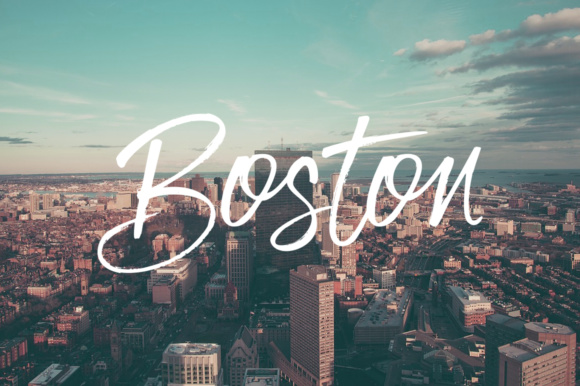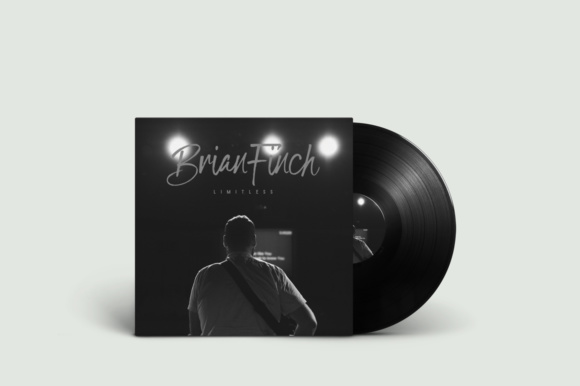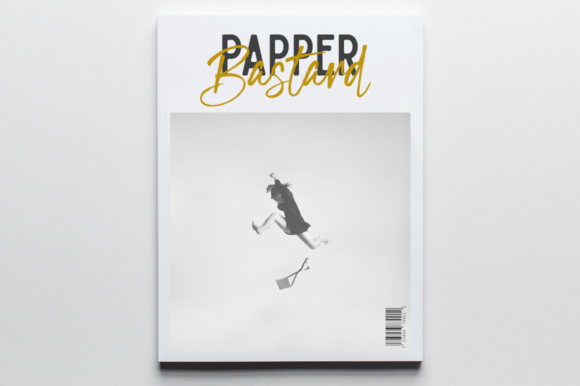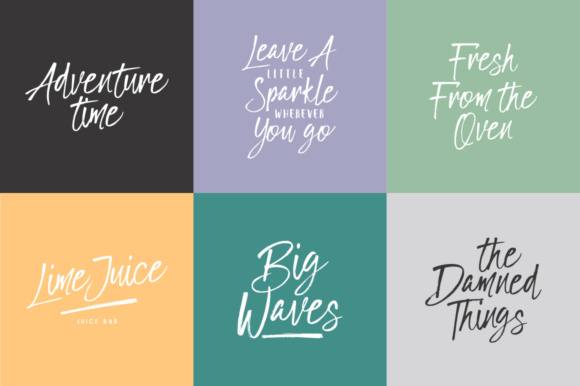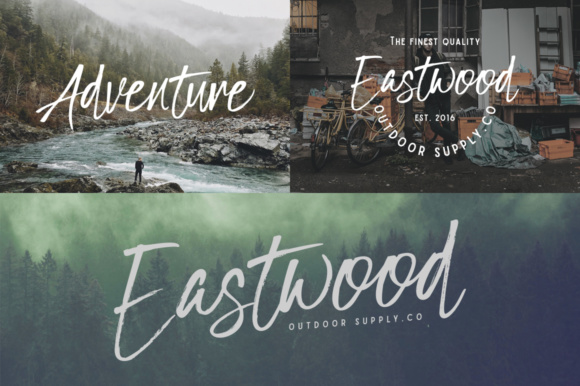
Introducing Heats Font: The Ultimate Hand-Brushed Script for Stunning Designs
Are you tired of using the same old fonts for your designs? Do you want to add a touch of uniqueness and personality to your work? Look no further than Heats Font, a hand-brushed script that is sure to take your designs to the next level. With its cool characters and distinctive look, Heats Font is perfect for advertising, poster designs, book covers, magazines, and any other design that needs a striking and eye-catching look.
What Makes Heats Font So Special?
Heats Font is a one-of-a-kind hand-brushed script that boasts a unique and captivating look. Its distinctive characters are carefully crafted to add a touch of personality and flair to any design. Whether you’re working on a bold advertising campaign or a creative book cover, Heats Font is sure to make your design stand out from the crowd.
Key Features of Heats Font
- Hand-brushed script: Heats Font is a hand-brushed script that gives it a personal and artistic touch.
- Cool characters: The font features cool and stylish characters that are sure to add a touch of personality to your designs.
- Unique look: Heats Font has a distinctive look that sets it apart from other fonts.
- Versatile: The font is perfect for a wide range of designs, including advertising, poster designs, book covers, magazines, and more.
Why Choose Heats Font?
There are many reasons why Heats Font is the perfect choice for designers and crafters. Here are just a few:
- Adds personality to your designs: Heats Font is a great way to add a touch of personality and flair to your designs.
- Stand out from the crowd: The font’s unique look ensures that your designs will stand out from the crowd.
- Easy to use: Heats Font is easy to use and can be incorporated into a wide range of designs.
- High-quality: The font is high-quality and is sure to make a lasting impression.
How to Use Heats Font
Heats Font is easy to use and can be incorporated into a wide range of designs. Here are a few tips on how to use the font:
- Use it as a headline font: Heats Font is perfect for use as a headline font, where its bold and eye-catching characters can really make an impact.
- Pair it with other fonts: The font can be paired with other fonts to create a unique and stylish look.
- Experiment with different colors: Heats Font looks great in a wide range of colors, so don’t be afraid to experiment and find the perfect color for your design.
Design Ideas Using Heats Font
Heats Font is a versatile font that can be used in a wide range of designs. Here are a few ideas to get you started:
- Advertising campaigns: Heats Font is perfect for use in advertising campaigns, where its bold and eye-catching characters can really make an impact.
- Poster designs: The font is great for use in poster designs, where its unique look can really make your design stand out.
- Book covers: Heats Font is a great choice for book covers, where its distinctive look can help to grab the reader’s attention.
- Magazines: The font is perfect for use in magazines, where its stylish and sophisticated look can really add to the overall design.
| Font Name | Heats Font |
| Author | AMSUPPLY |
In conclusion, Heats Font is a unique and versatile hand-brushed script that is perfect for designers and crafters looking to add a touch of personality and flair to their designs. With its cool characters and distinctive look, Heats Font is sure to make your designs stand out from the crowd. Whether you’re working on an advertising campaign, poster design, book cover, or magazine, Heats Font is the perfect choice.